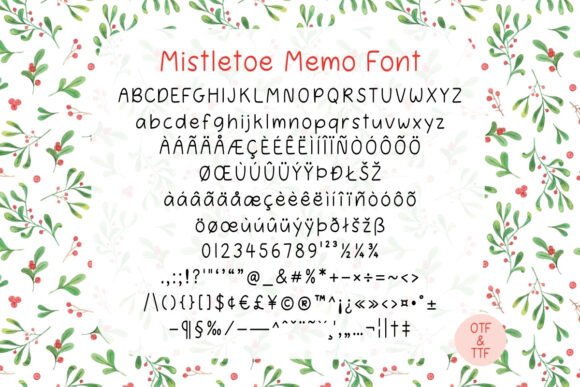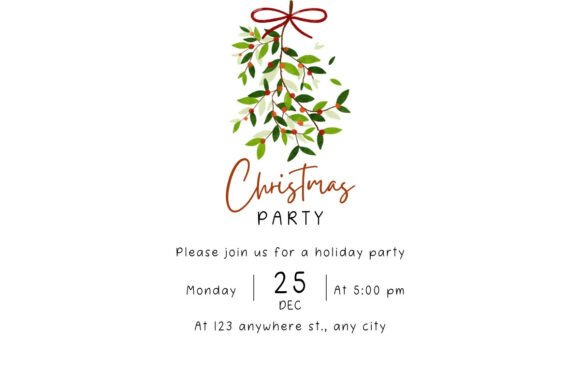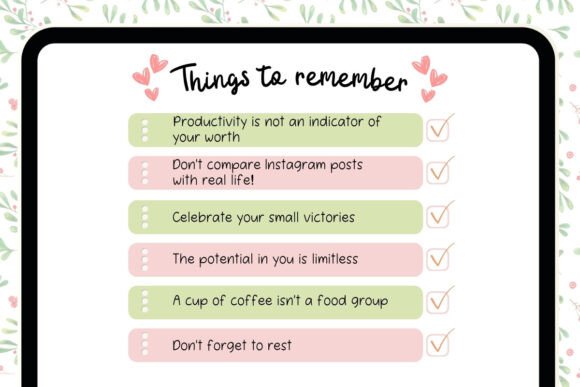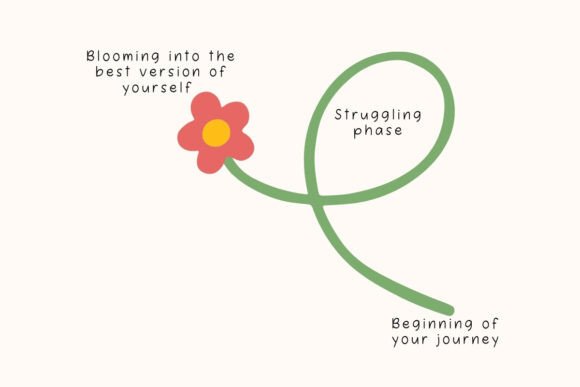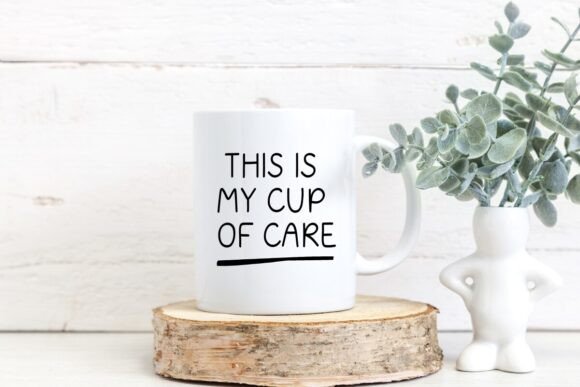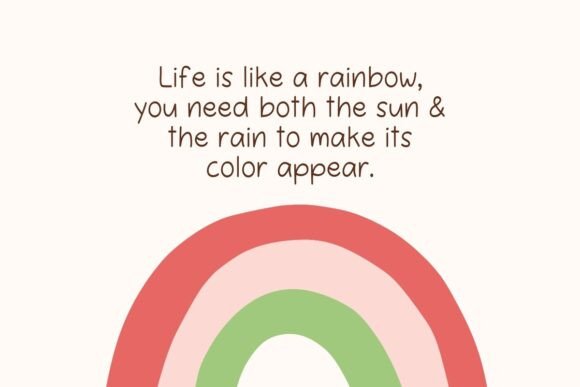
Introduction to Mistletoe Memo Font
Mistletoe Memo is a neat and clean handwriting font designed for stylish and organized note-taking.
Perfect for school notes, student assignments, digital planners, journaling, and creative projects on GoodNotes, iPad, Procreate, and more Its polished, minimal style makes it ideal for academic, personal, or professional use.
Mistletoe Memo Font offers exceptional quality and versatility, making it a valuable addition to your design toolkit. Whether you’re creating for personal projects or commercial use, Mistletoe Memo Font delivers professional results.